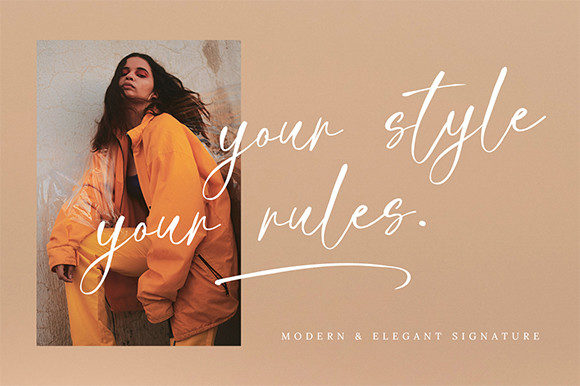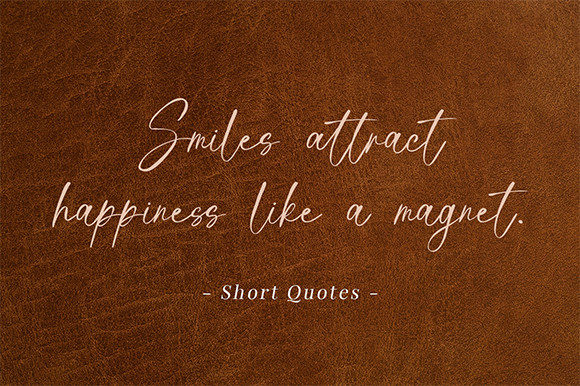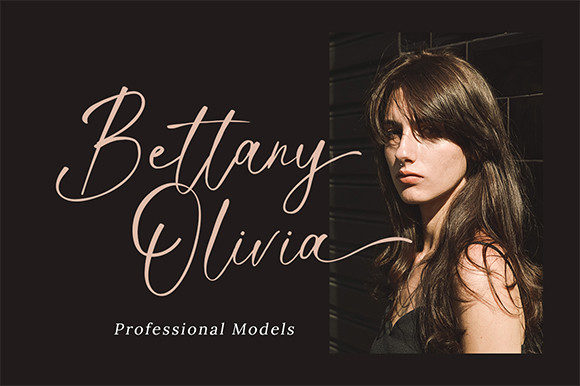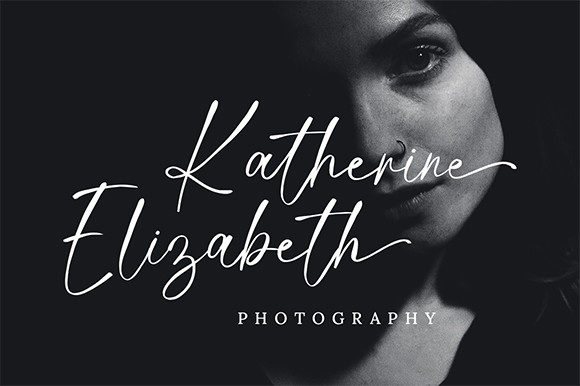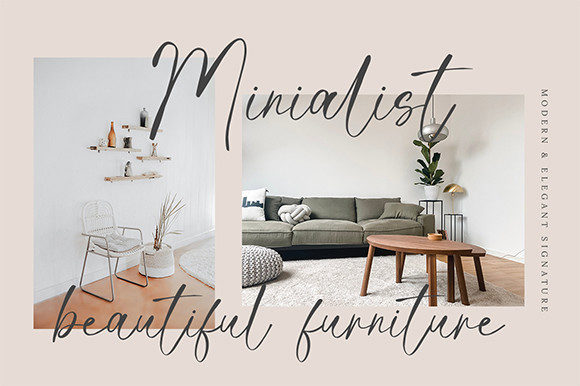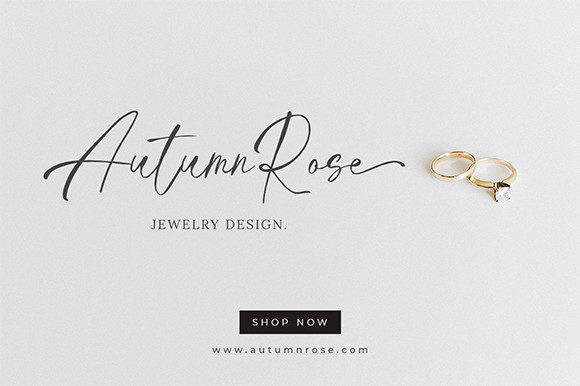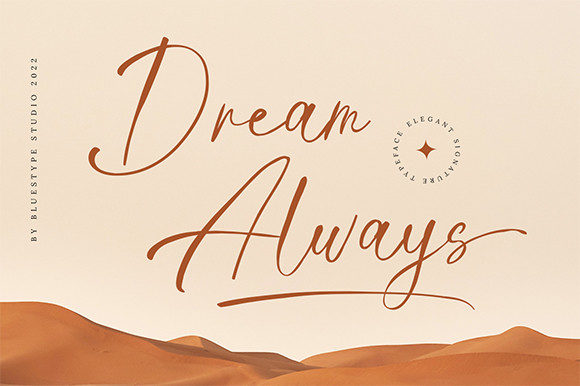
Dream Always Font: Elevate Your Designs with a Relaxed and Casual Handwritten Style
Are you tired of using the same old fonts in your designs? Do you want to add a touch of personality and whimsy to your projects? Look no further than the Dream Always Font, a beautiful and relaxed handwritten font that’s perfect for a variety of design ideas. In this article, we’ll take a closer look at the Dream Always Font, its features, and how you can use it to elevate your designs.
What is Dream Always Font?
Dream Always Font is a stylish and casual handwritten font that’s designed to add a personal touch to your designs. Its relaxed and effortless style makes it perfect for a wide range of projects, from branding and advertising to crafting and DIY projects. Whether you’re a designer, crafter, or DIY enthusiast, this font is sure to become a favorite in your collection.
Key Features of Dream Always Font
So, what makes the Dream Always Font so special? Here are just a few of its key features:
• Relaxed and Casual Style: The Dream Always Font has a laid-back, effortless style that’s perfect for designs that need a personal touch.
• PUA Encoded: This font is PUA (Private Use Area) encoded, which means you can access all of the glyphs and swashes with ease. This makes it easy to customize your designs and add your own personal touches.
• Handwritten Style: The Dream Always Font has a beautiful, handwritten style that’s perfect for adding a touch of personality to your designs.
• Versatile: This font is versatile and can be used for a wide range of design ideas, from branding and advertising to crafting and DIY projects.
How to Use Dream Always Font in Your Designs
So, how can you use the Dream Always Font in your designs? Here are a few ideas to get you started:
• Branding and Advertising: Use the Dream Always Font to create unique and eye-catching branding and advertising materials, such as logos, business cards, and brochures.
• Crafting and DIY Projects: Add a personal touch to your crafting and DIY projects, such as handmade cards, gift tags, and scrapbooking pages.
• Social Media Graphics: Use the Dream Always Font to create engaging and shareable social media graphics, such as quotes, posters, and flyers.
• Web Design: Use the Dream Always Font to add a touch of personality to your website, such as in headings, titles, and other design elements.
Tips and Tricks for Using Dream Always Font
Here are a few tips and tricks for using the Dream Always Font in your designs:
• Experiment with Different Sizes and Colors: Don’t be afraid to experiment with different sizes and colors to find the perfect combination for your design.
• Use it with Other Fonts: The Dream Always Font pairs well with other fonts, so don’t be afraid to use it in combination with other fonts to create a unique and interesting design.
• Take Advantage of PUA Encoding: Make sure to take advantage of the PUA encoding by accessing the glyphs and swashes to add your own personal touches to your design.
In conclusion, the Dream Always Font is a beautiful and versatile handwritten font that’s perfect for designers, crafters, and DIY enthusiasts. Its relaxed and casual style, combined with its PUA encoding and versatile nature, make it a great addition to any design collection. Whether you’re looking to add a personal touch to your branding and advertising materials, crafting and DIY projects, or social media graphics, the Dream Always Font is sure to deliver.